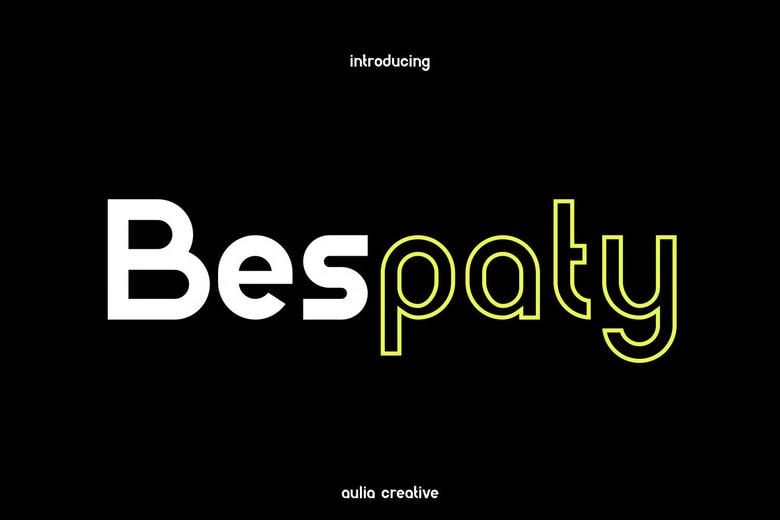
Bespaty Font
Bespaty Font-Sans Line is a fantastic and genuine display font that can impress by its clear, contemporary lines and solid visuality. It is easy to use but maintains a unique style that can be used in headlines, branding, and creative projects that demand a bold but elegant typeface.
Bespaty Sans Serif Font